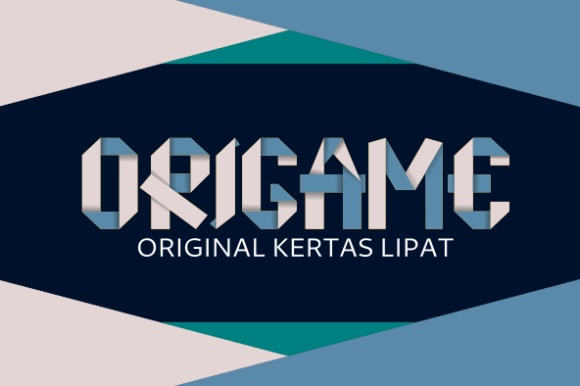
Origame Font
Origame Font is perfect for Japanese cultural centers, traditional craft workshops, meditation retreat branding, minimalist design studios, contemporary art galleries, zen wellness centers, architectural firms, origami instruction materials, mindful lifestyle brands, and sophisticated Japanese-inspired organizations.
Origame Font creates excitement because it embodies the precise artistry and meditative elegance of Japanese paper folding with its angular letterforms and origami-inspired character design. The font's geometric precision and zen aesthetic instantly convey mindful craftsmanship and cultural sophistication, making any brand appear thoughtfully designed and authentically Japanese. Its carefully crafted folded details and meditative character create an immediate sense of artistic mindfulness that captivates audiences seeking zen experiences, cultural quality, and products that celebrate the transformative beauty of Japanese art traditions and mindful creativity.
The Origame Font family includes multiple weights and styles: Regular, Bold, Light, Medium, Italic, Condensed, Extended, Folded, Meditative, and Zen versions. Each variant maintains the font's signature origami character while offering different levels of Japanese styling and mindful authenticity suitable for various cultural and artistic applications.
This contemplative typeface brings the authentic spirit of Japanese artistry into contemporary design with remarkable precision and cultural appeal. Origame Font Free Download provides cultural brands and mindful organizations with access to premium Japanese-inspired typography that embodies the essence of origami wisdom and artistic meditation. The font's precise design and Japanese authenticity make it ideal for businesses seeking to establish meaningful connections with culturally conscious audiences who appreciate Japanese craftsmanship, mindful practices, and the transformative power of artistic meditation that creates balance through creative focus. Whether you're creating branding for cultural institutions, designing materials for wellness centers, developing communications for artistic organizations, or producing content for mindful lifestyle brands, this font delivers the authentic Japanese atmosphere that resonates with audiences seeking genuine cultural experiences, artistic quality, and the meditative peace that comes from embracing authentic Japanese art traditions. Its versatile design ensures outstanding performance across both elegant printed materials and sophisticated digital cultural platforms while maintaining the character of authentic Japanese typography. The font excels in applications requiring cultural credibility and artistic appeal. Creative professionals appreciate its ability to convey Japanese authenticity while remaining highly functional for various cultural communications and artistic promotional materials. The comprehensive character set includes origami symbols and extensive international language support, making it perfect for global Japanese cultural brands and international artistic organizations seeking to communicate authentic Japanese artistry, mindful creativity, and cultural excellence to diverse worldwide audiences who embrace Japanese culture, appreciate mindful practices, and value the transformative power of genuine Japanese art traditions that teach patience through precise folding, wisdom through artistic meditation, and the beautiful simplicity of origami that transforms ordinary paper into extraordinary expressions of cultural artistry and mindful creativity.